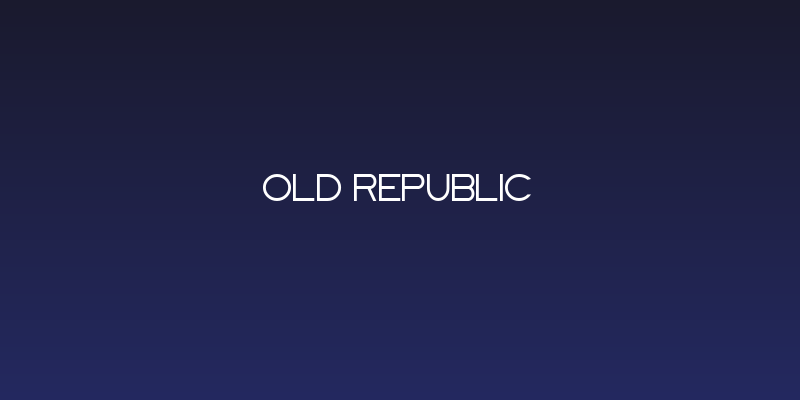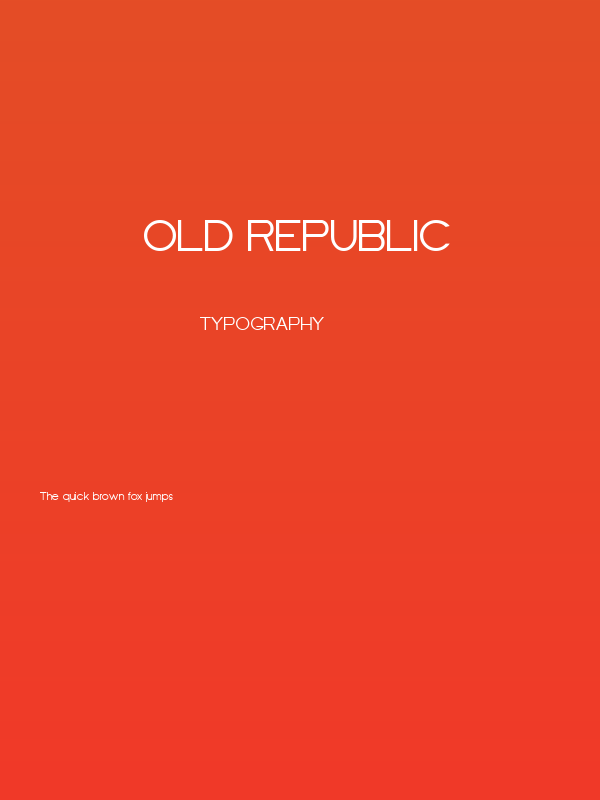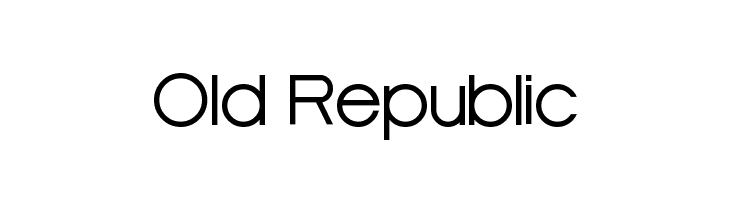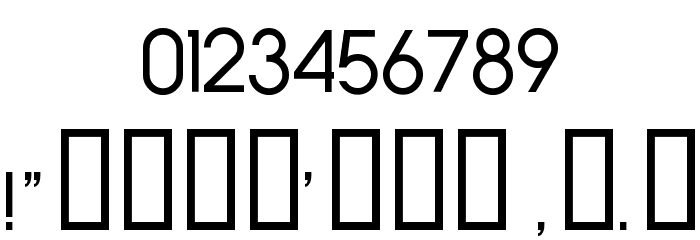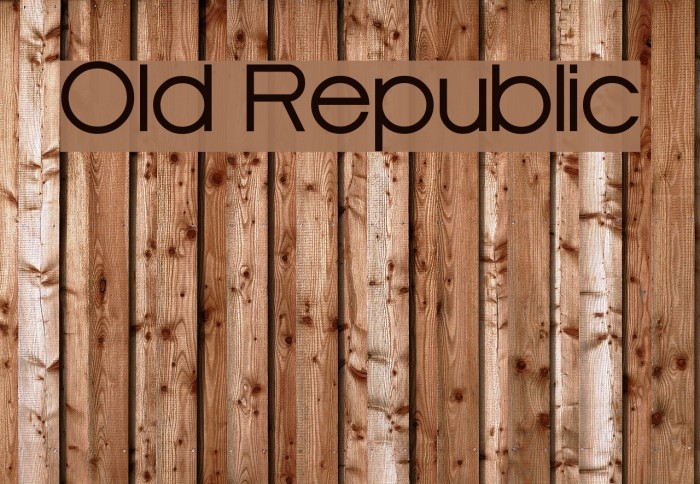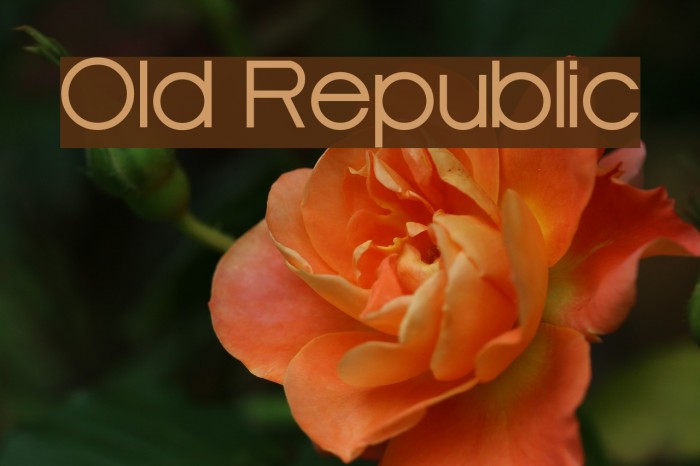
Old Republic Font
Old Republic Description
This font features a clean and modern sans-serif design, characterized by its geometric shapes and uniform stroke widths. The uppercase letters are bold and impactful, while the lowercase letters maintain a consistent style with rounded edges that add a touch of softness. The numerals are clear and easily distinguishable, making them suitable for various applications. The special characters are designed to match the overall aesthetic, ensuring a cohesive look across all text elements. This font is versatile and can be used in both digital and print media, offering a contemporary feel that is both professional and approachable.